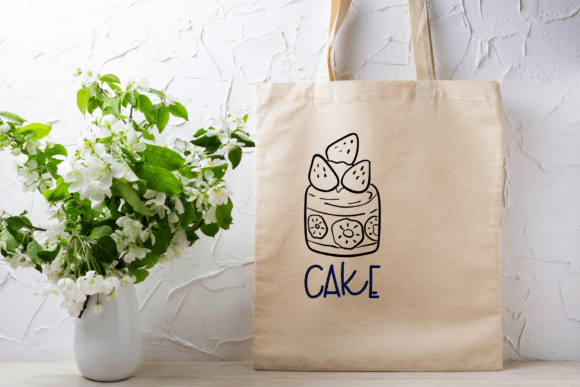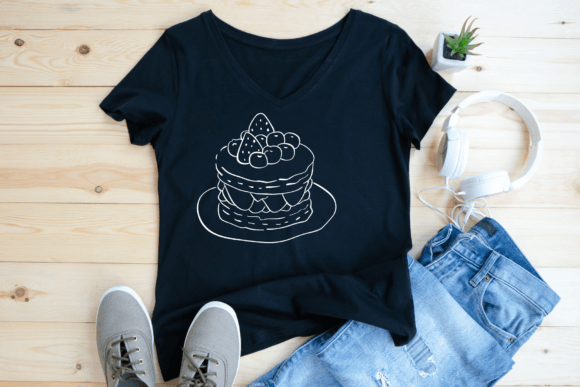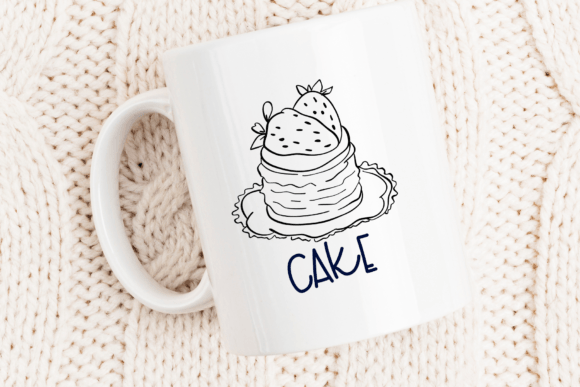
The Sweetest Font You’ll Ever Use: Dessert Cake Font
I’ll never forget the time I was working on a wedding invitation project, and my client asked for a font that was “whimsical, yet elegant.” I scoured the internet, tried out dozens of fonts, but nothing seemed quite right. That was until I stumbled upon the Dessert Cake font. It was love at first sight! 💕 This adorable dingbat font has a delicious theme that’s perfect for creative projects like wedding invitations, DIY crafts, decorations, logos, and so much more.
- ✨ The font is incredibly versatile and can be used for a wide range of projects, from formal to informal.
- ✅ The glyphs are beautifully designed and look great in various sizes.
- 🎉 The font comes with a range of OpenType features, including stylistic alternates and ligatures, which add an extra layer of creativity.
- 👍 The font is easy to read and understand, making it perfect for titles, headings, and even body text.
While I absolutely love the Dessert Cake font, there are a few minor quirks to be aware of:
- ⚠️ Some of the glyphs can be a bit finicky when it comes to kerning, so be sure to adjust as needed.
- 🤔 The font may not be the best choice for very long blocks of text, as it can get a bit overwhelming.
The Backstory Behind Dessert Cake Font
The Dessert Cake font was designed by a talented typographer who wanted to create a font that captured the whimsy and delight of desserts. With inspiration from classic bakery signs and vintage recipe cards, this font is sure to satisfy your design cravings!
Q: What type of projects is the Dessert Cake font best suited for?
A: The Dessert Cake font is perfect for creative projects like wedding invitations, DIY crafts, decorations, logos, and more.
Q: Does the Dessert Cake font come with OpenType features?
A: Yes, the Dessert Cake font comes with a range of OpenType features, including stylistic alternates and ligatures.